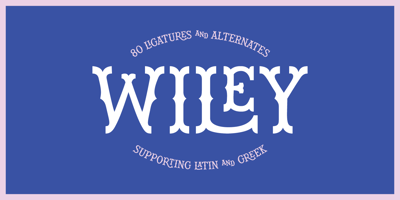
Wiley
Wiley font
Wiley Font Family was designed by Molly Suber Thorpe and published by Molly Suber Thorpe. Wiley contains 1 styles and family package options. Wiley is a ligature-rich, decorative typeface with full support for both Latin and Modern Greek. It’s a modern twist on vintage Western serif fonts that makes unique logos, personal stationery, and monograms. Wiley has over 80 ligatures and alternates (for Greek, too!), so it’s extremely customizable and versatile. Its 500+ glyphs include: the complete Latin alphabet (with all accent marks), the complete Modern Greek alphabet, 80 standard and discretionary ligatures in both Latin and Greek, numerals, ordinals, and fractions, decorative ornaments and finials, extensive punctuation and diacritical markings.